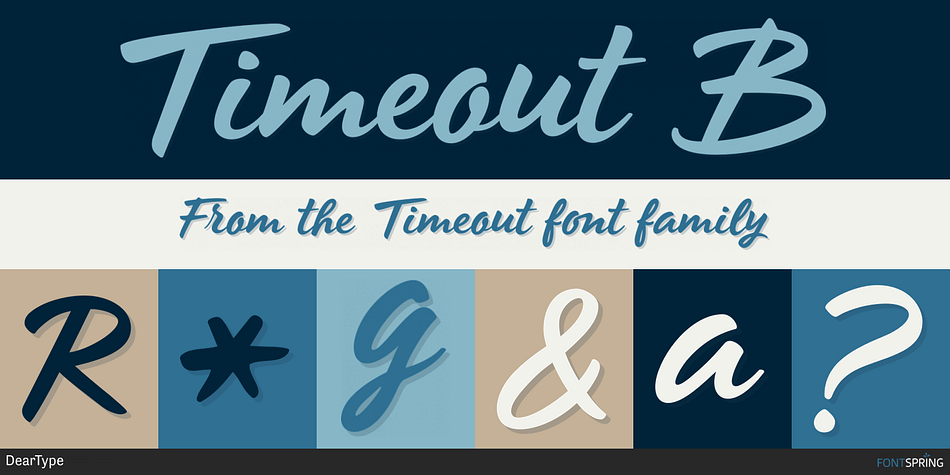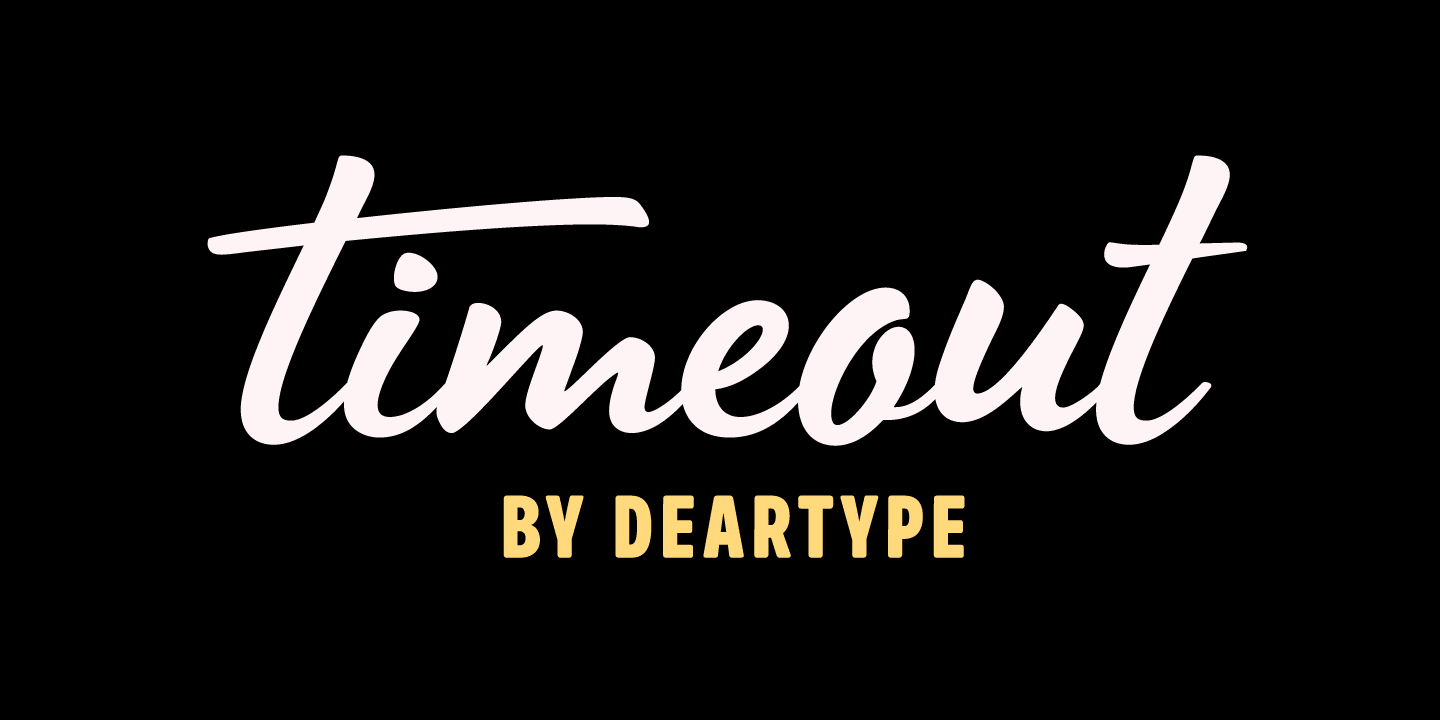
Timeout B
Designed by Veneta Rangelova, Timeout is a dingbat, brush script and display sans font family. This typeface has four styles and was published by DearType.
Timeout is a fresh, casual script paired with a bold, impactful sans and lots of goodies. It is modern, stylish and it comes in two variations for easy use:
- Timeout - long ascenders, descenders and caps - for more impact.
- Timeout B - short ascenders, descenders and caps - for easy stacking.
The combo between the script and the headline-style sans works perfectly for various applications such as logos, posters, fashion photos, ads, postcards, branding, T-shirts, web images, product packaging and basically for anything you need to look sexy, interesting and informal. The script has some sweet ligatures, stylistic alternates and swashes that will make your designs stand out and capture attention, especially paired with some of the goodies.